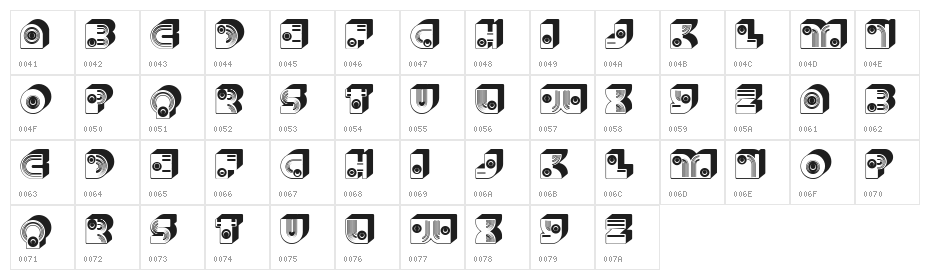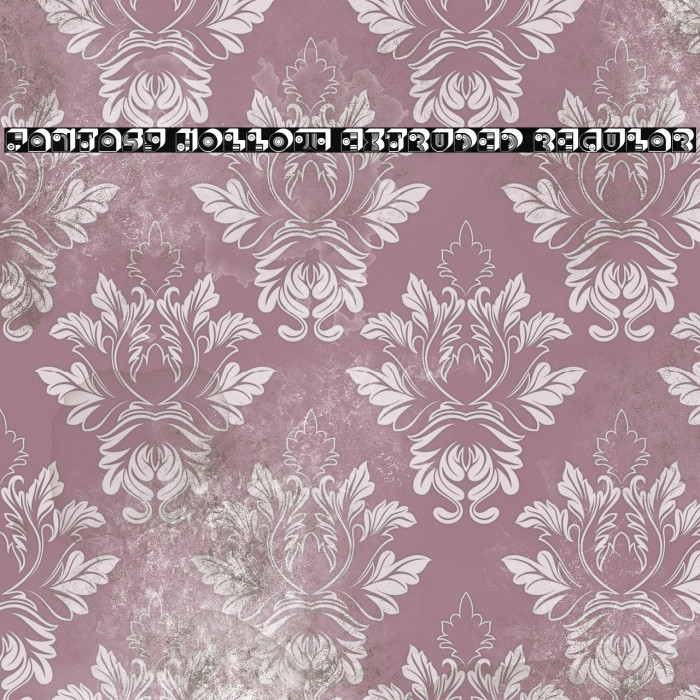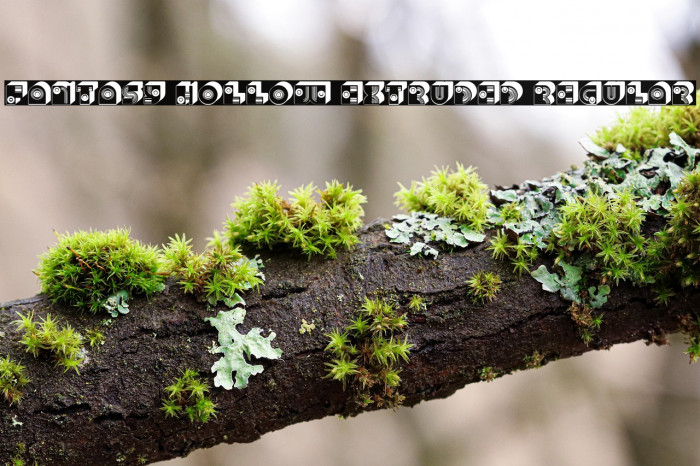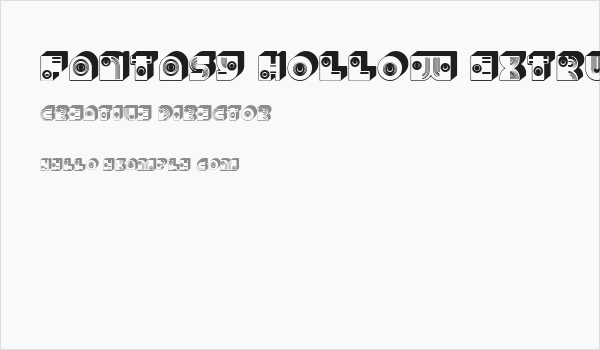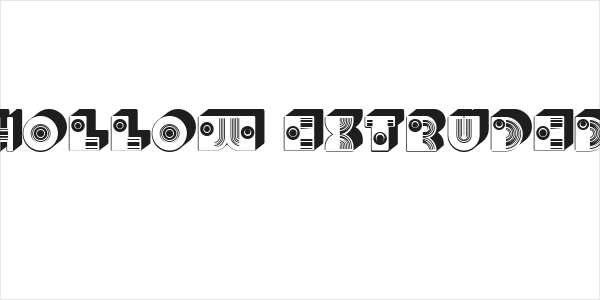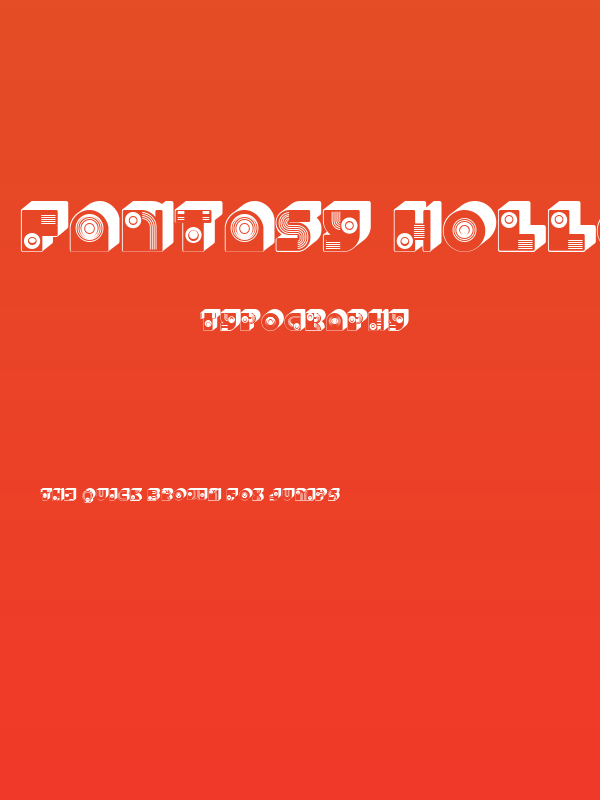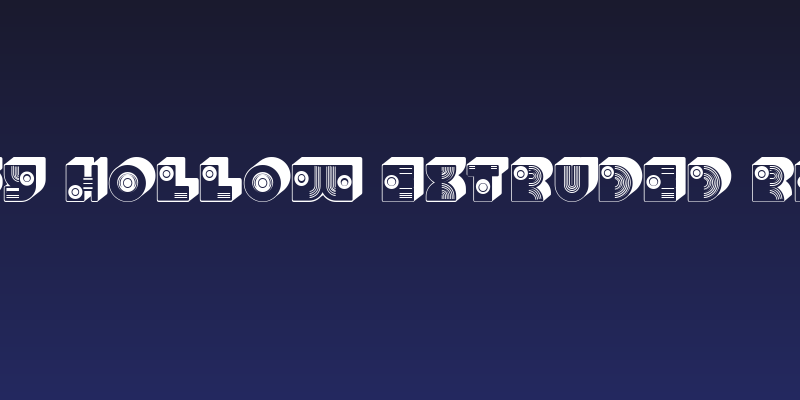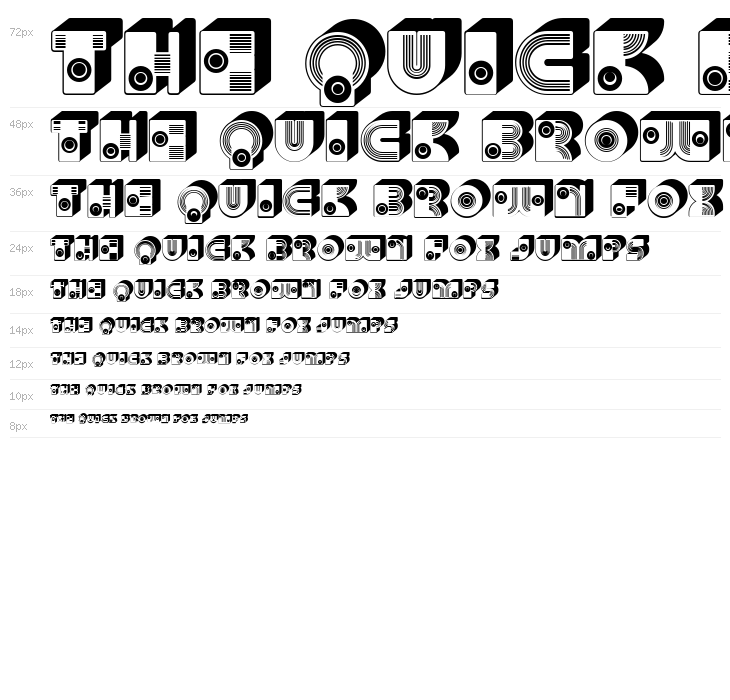
Fantasy Hollow Extruded Regular Font
Fantasy Hollow Extruded Regular Description
This font features a bold, decorative style with a hollow, extruded appearance. Each character is designed with intricate line work and circular embellishments, creating a sense of depth and dimensionality. The letters are uppercase and have a futuristic, almost mechanical feel, making them stand out with their unique geometric patterns. The font's design is highly stylized, with a strong emphasis on visual impact, making it suitable for eye-catching displays and creative projects.